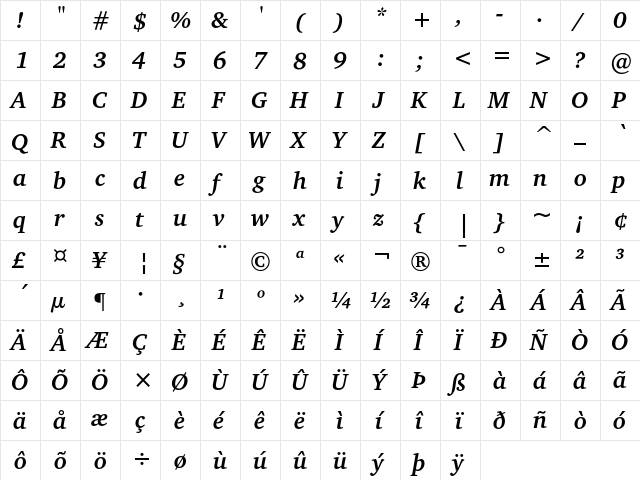
CharterITC Bold Italic
| Foundry | ParaType Inc. |
| Designer | Matthew Carter, Vladimir Yefimov |
Design Context for CharterITC Typeface
CharterITC offers clean, dependable letterforms without strong stylistic allegiance, making it a practical choice for designers who need flexibility. The slanted form adds forward momentum and visual energy. Its bold stroke weight gives it real presence on the page.
Pro Tip: Try CharterITC for annotation and caption copy alongside an upright companion — the contrast in angle creates a dynamic but ordered typographic system.